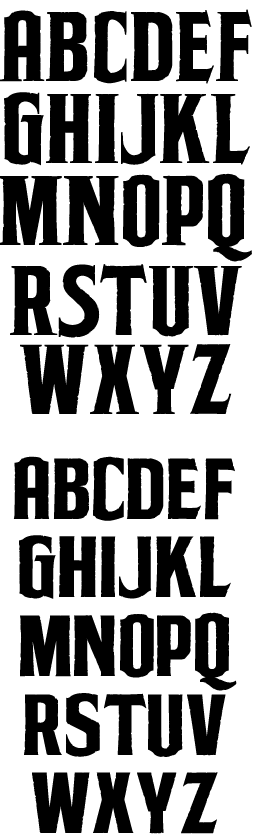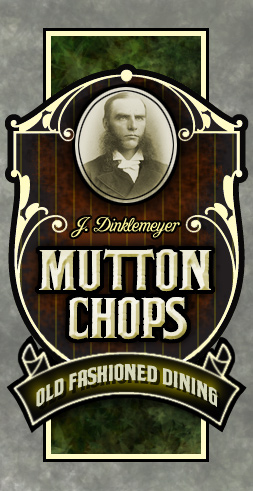
LHF Lincoln
Ever see the lettering on the modern 'Lincoln Logs' tins? You might be too old to play with the logs but you can still play with the font.